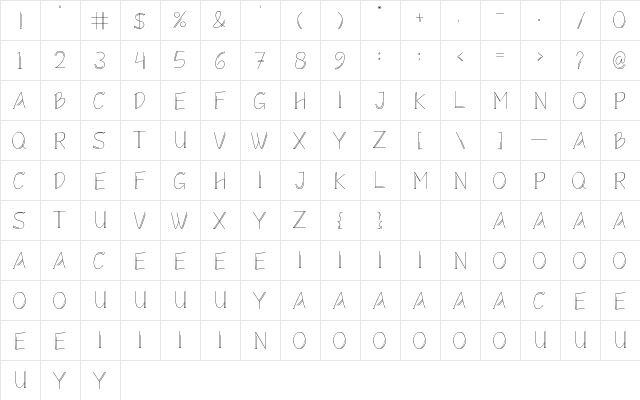
Monolism Regular
| Foundry | GilzType |
| Designer | GilzType |
Design Context for Monolism Typeface
Monolism uses fixed-width spacing throughout, giving it the structured, systematic character associated with coding environments and technical documentation.
Pro Tip: Pair Monolism with a proportional sans for UI contexts where code-style labels and regular body copy need to coexist.